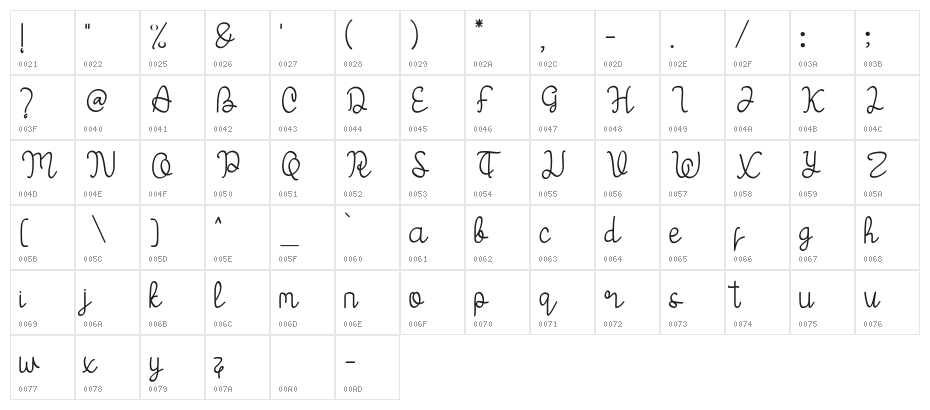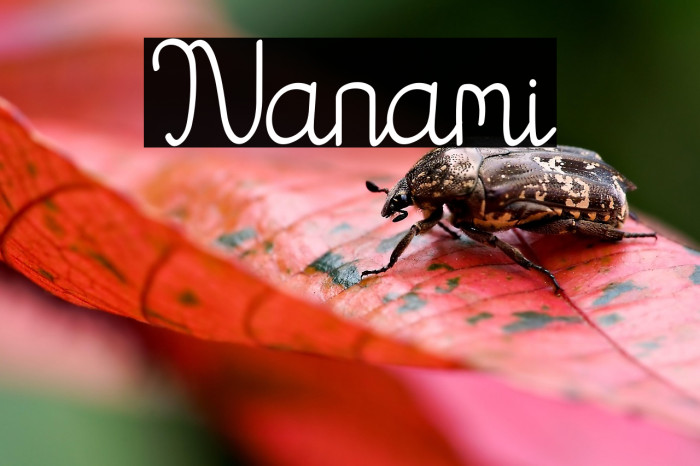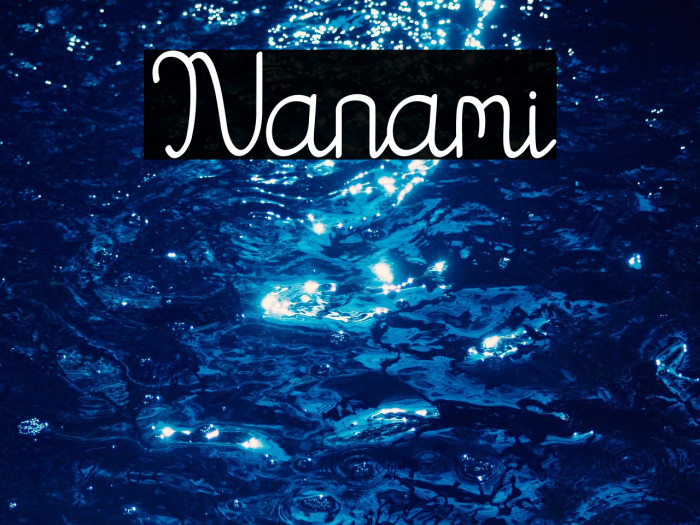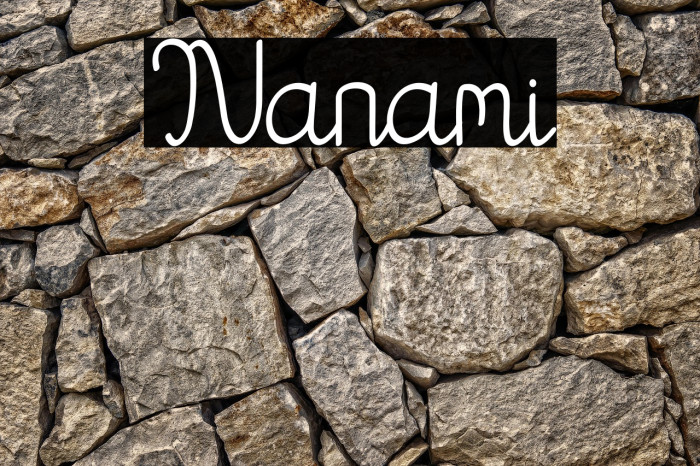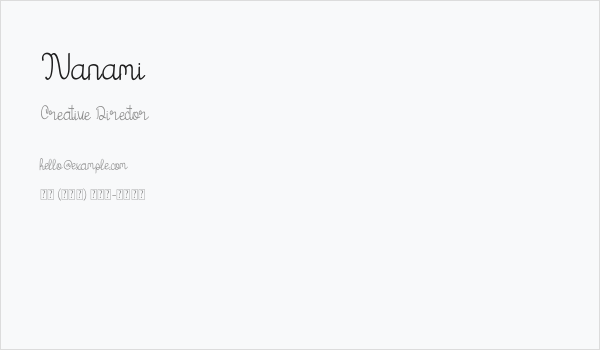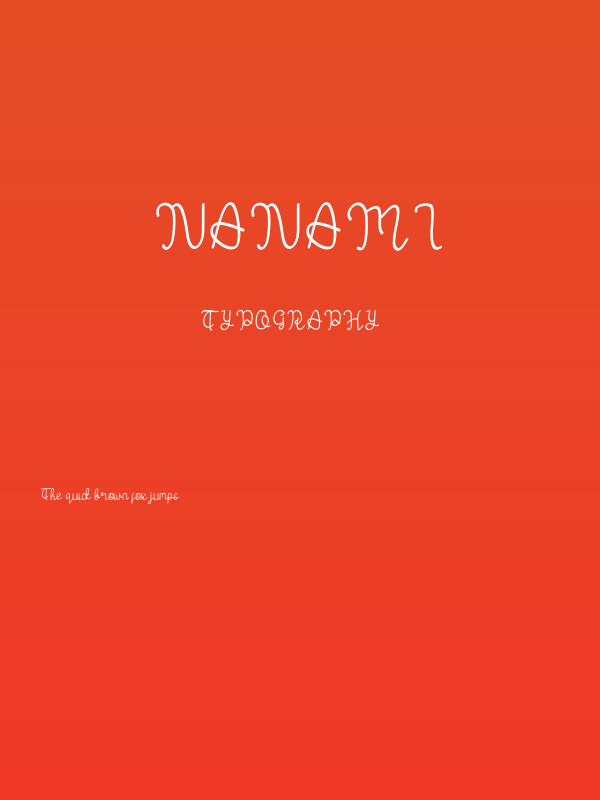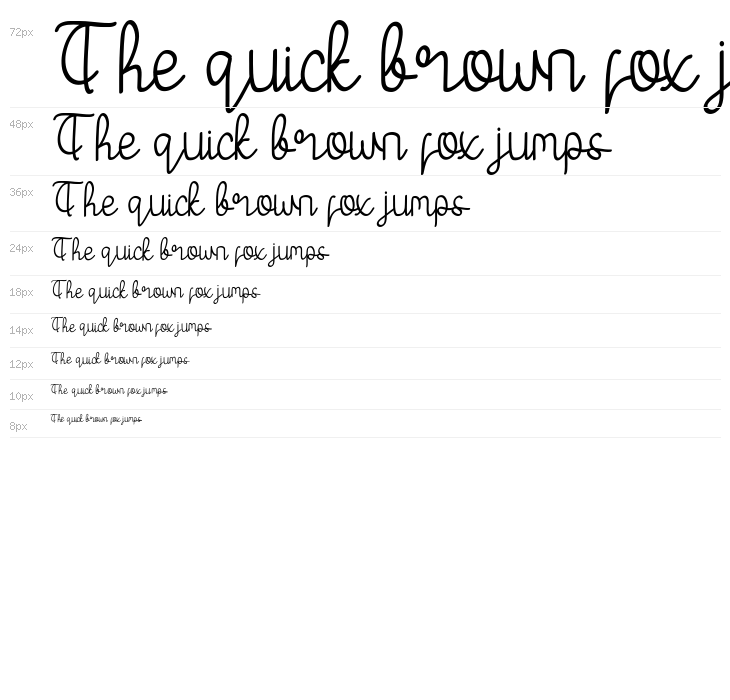
Nanami Font
Nanami Description
This font exhibits a playful and whimsical style, characterized by its flowing, cursive-like script. The letters are interconnected with smooth, rounded strokes that give it a handwritten feel. The uppercase letters maintain a consistent height, while the lowercase letters feature a slight slant, enhancing the casual and friendly appearance. The numerals and special characters are designed to match the overall aesthetic, with similar curves and loops. This font is ideal for projects that require a personal touch, such as invitations, greeting cards, or creative branding.